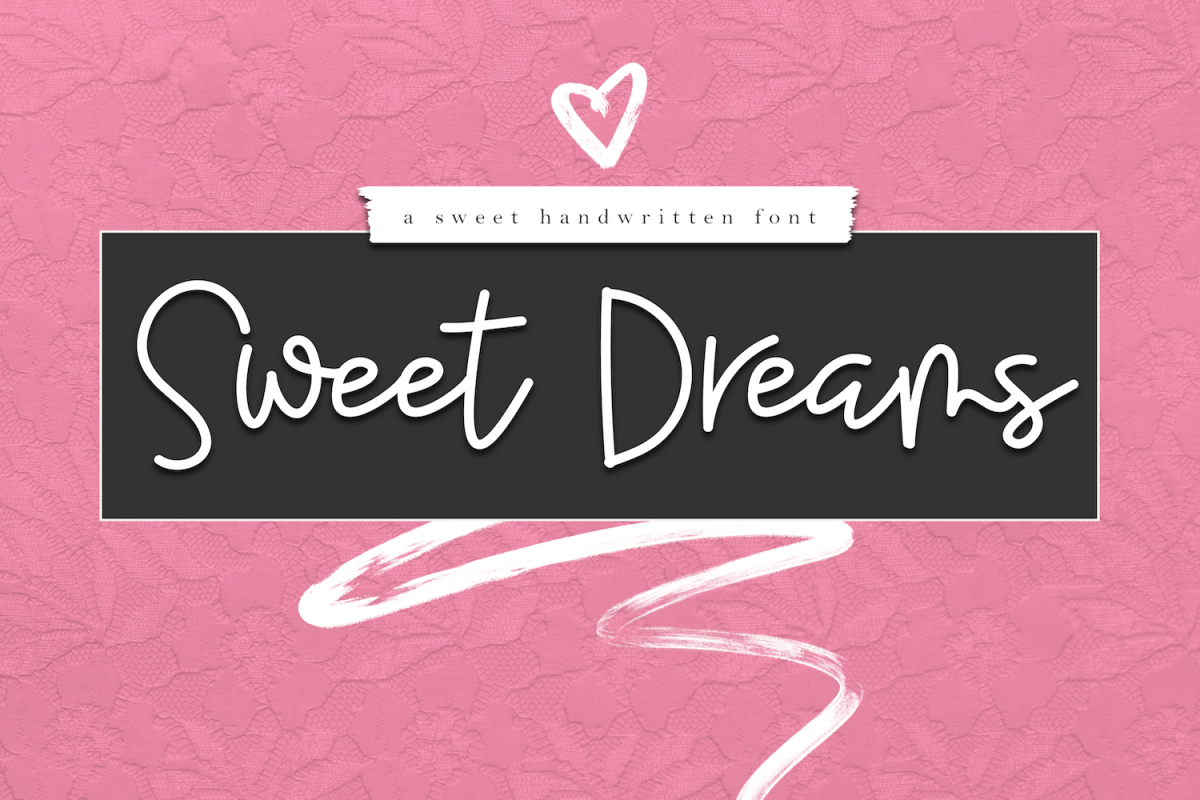
Sweet Dreams - Handwritten Script Font
Sweet Dreams is a chic handwritten script font.
This font is perfect for quotes, headings, designs, logos, invitations and more!
This font *does* include accent characters.